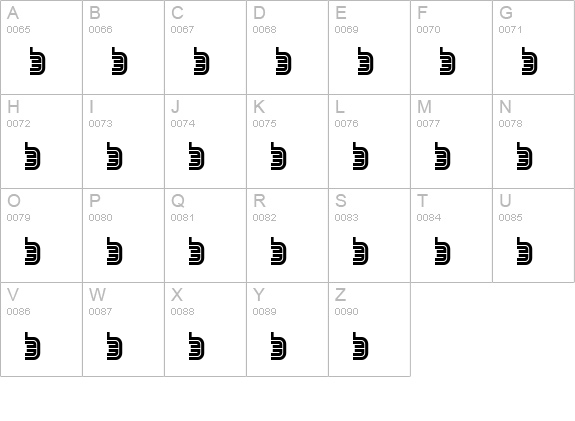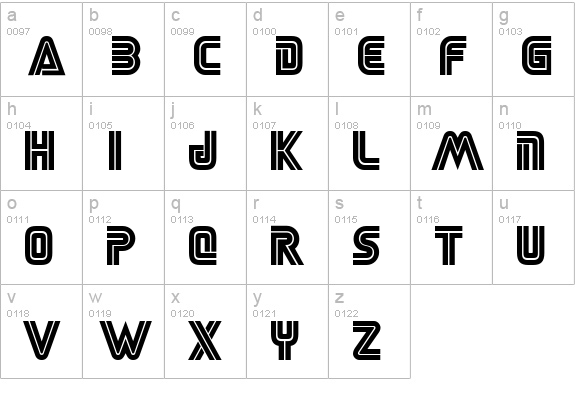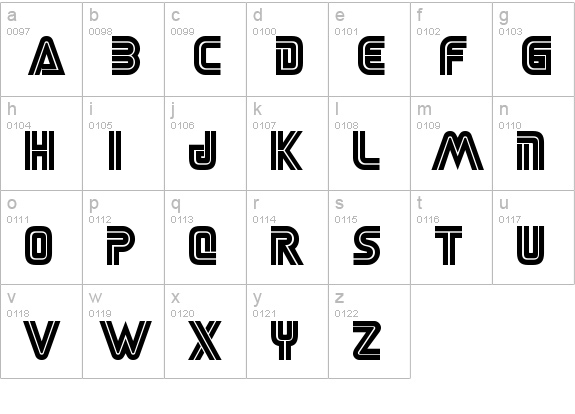
SEGA LOGO FONT Font Details
The SEGA LOGO FONT font is a stunning display typeface that captures the essence of the iconic SEGA logo. With its bold and futuristic design, this font effortlessly captures attention and adds a touch of nostalgia to any project. Designed with precision and attention to detail, SEGA LOGO FONT is suitable for a wide range of creative applications such as branding, logos, posters, titles, and more. Its clean lines and smooth curves make it easily readable even at smaller sizes, ensuring that your message is delivered with clarity and impact. One of the best features of SEGA LOGO FONT is that it is free to download at FontsMarket.com. This means that you can easily access and use this font in your projects without any additional cost. Whether you're a professional designer or simply a passionate enthusiast, this font allows you to bring the SEGA aesthetic to your work with ease. With its versatility and timeless appeal, SEGA LOGO FONT is a must-have for anyone looking to add a touch of retro charm to their designs. Download it today from FontsMarket.com and unlock a world of creative possibilities. Let SEGA LOGO FONT elevate your designs to new heights and capture the imagination of your audience.